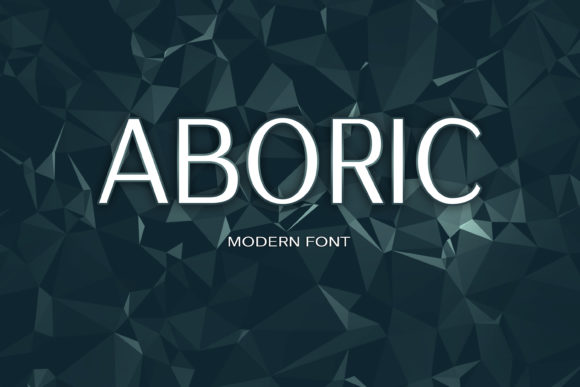
Aboric Font: A Modern Twist on Traditional Sign Painting
In the world of typography, fonts play a crucial role in conveying messages, expressing creativity, and setting the tone for a brand or design. For designers and crafters, finding the perfect font can be a daunting task, especially when looking for something that combines modernity with a touch of tradition. This is where Aboric Font comes in – a stunning sans serif font that draws inspiration from traditional sign painting, with a modern twist.
The Inspiration Behind Aboric Font
Aboric Font is a clean and minimal sans serif font that takes its cues from the classic art of sign painting. The font’s creator aimed to capture the essence of traditional sign painting, while infusing it with a modern and fresh feel. The result is a font that exudes a sense of sophistication, elegance, and playfulness, making it perfect for a wide range of design applications.
Key Features of Aboric Font
So, what makes Aboric Font stand out from the crowd? Here are some of its key features:
- Clean and Minimal Design: Aboric Font boasts a clean and minimal design, making it perfect for modern designs that require a touch of sophistication.
- Sans Serif Elegance: The font’s sans serif design gives it a sleek and contemporary feel, suitable for a wide range of design applications.
- Traditional Sign Painting Inspiration: Aboric Font’s inspiration from traditional sign painting gives it a unique and distinctive character.
- Modern Twist: The font’s modern twist sets it apart from more traditional fonts, making it perfect for designers looking for something fresh and exciting.
Use Cases for Aboric Font
Aboric Font’s versatility makes it suitable for a wide range of design applications, including:
- Branding and Logo Design: Aboric Font’s unique character makes it perfect for creating memorable brand identities and logos.
- Signage and Display Design: The font’s inspiration from traditional sign painting makes it a natural fit for signage and display design.
- Packaging Design: Aboric Font’s clean and minimal design makes it suitable for packaging design, where clarity and simplicity are essential.
- Digital Design: The font’s modern twist and sans serif design make it perfect for digital design applications, such as website headers, social media graphics, and more.
Why Choose Aboric Font?
With so many fonts available, why choose Aboric Font? Here are just a few reasons:
- Unique Character: Aboric Font’s inspiration from traditional sign painting gives it a unique and distinctive character that sets it apart from other fonts.
- Versatility: The font’s clean and minimal design makes it suitable for a wide range of design applications.
- Modern and Fresh Feel: Aboric Font’s modern twist gives it a fresh and exciting feel that’s perfect for designers looking for something new and innovative.
In conclusion, Aboric Font is a stunning sans serif font that combines the best of traditional sign painting with a modern twist. Its clean and minimal design, unique character, and versatility make it perfect for a wide range of design applications. Whether you’re a designer, crafter, or simply someone looking for a fresh and exciting font, Aboric Font is definitely worth checking out.